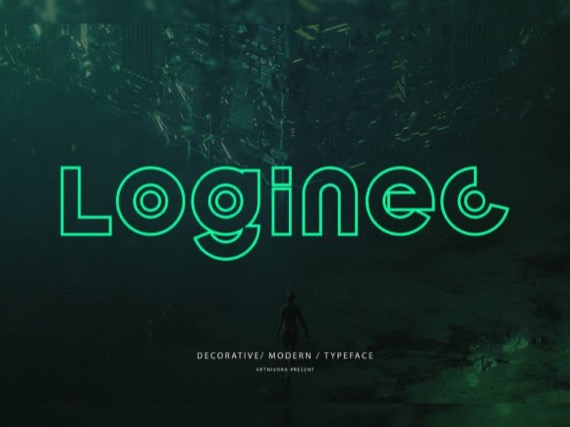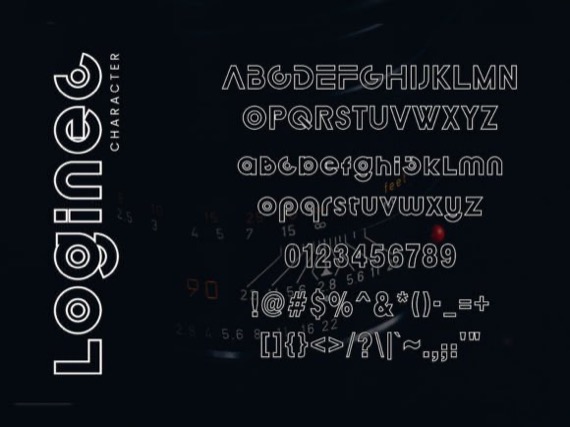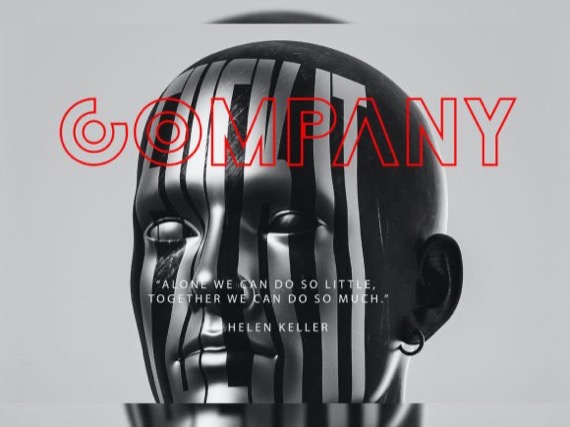
Loginec is an elegant and simple decorative font that was shared by Artnivora.std. So perfect for you who needs a typeface for logo designs, magazine, social media, brochure, and many more.
Loginec Decorative Font